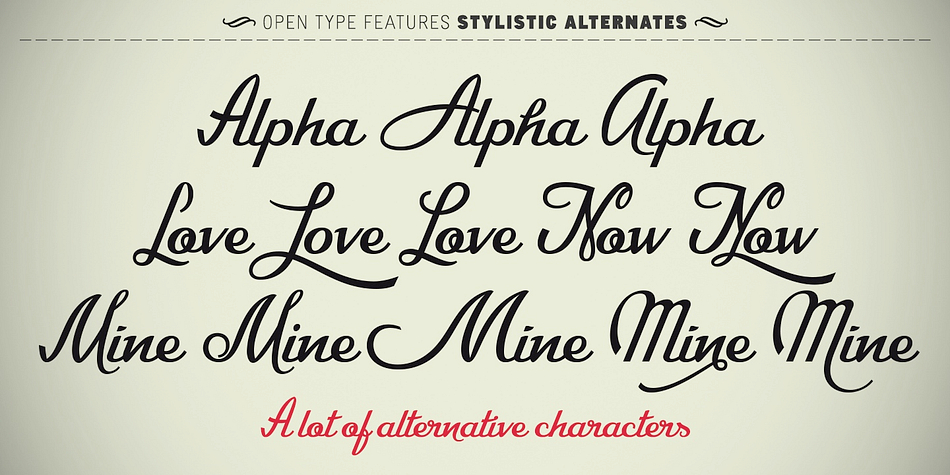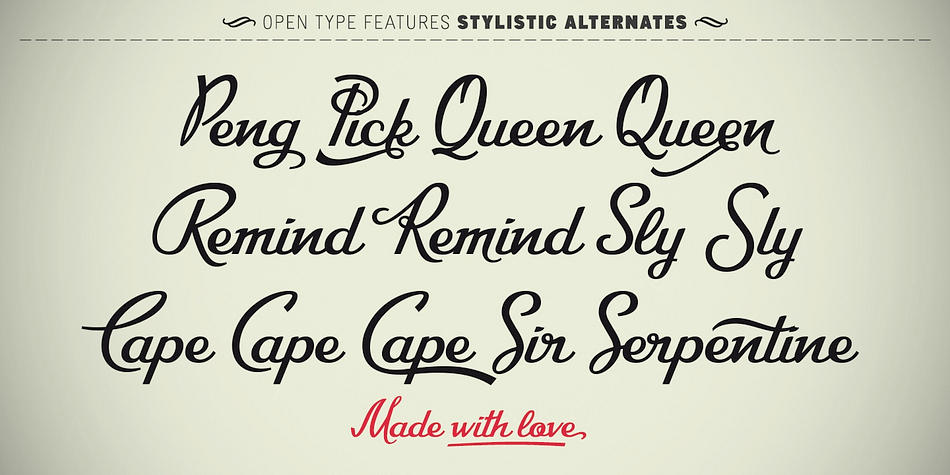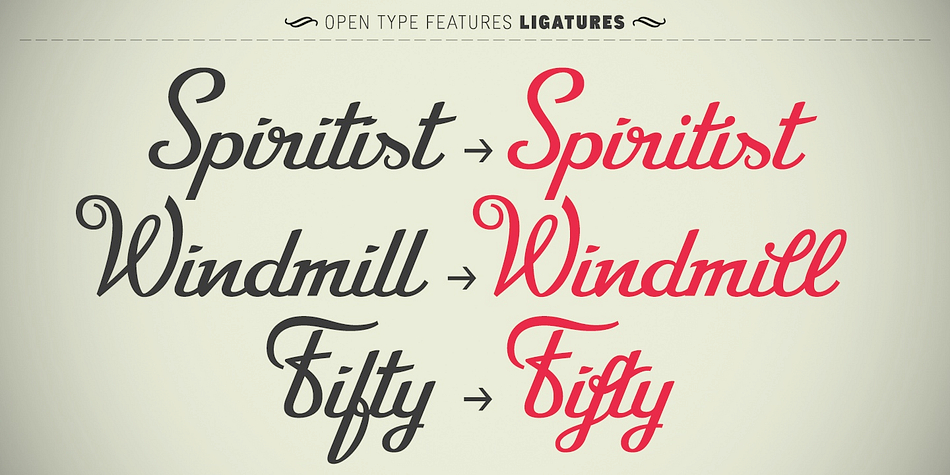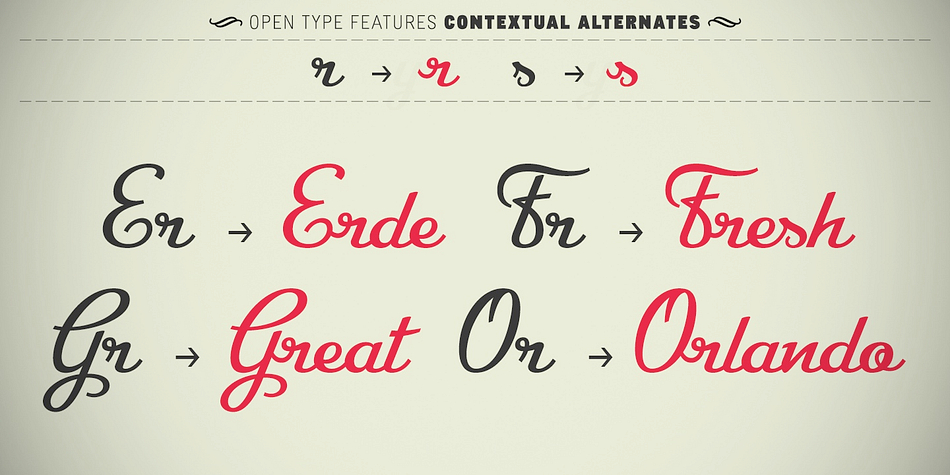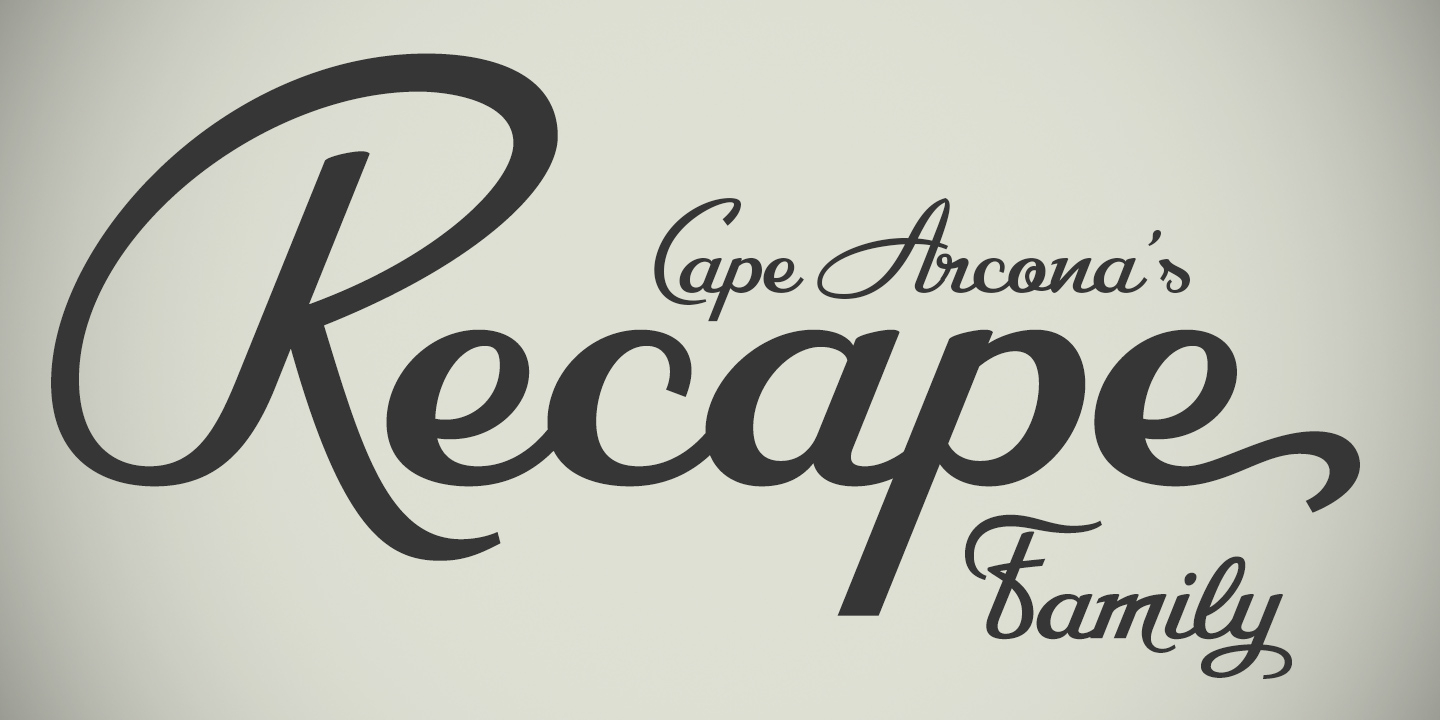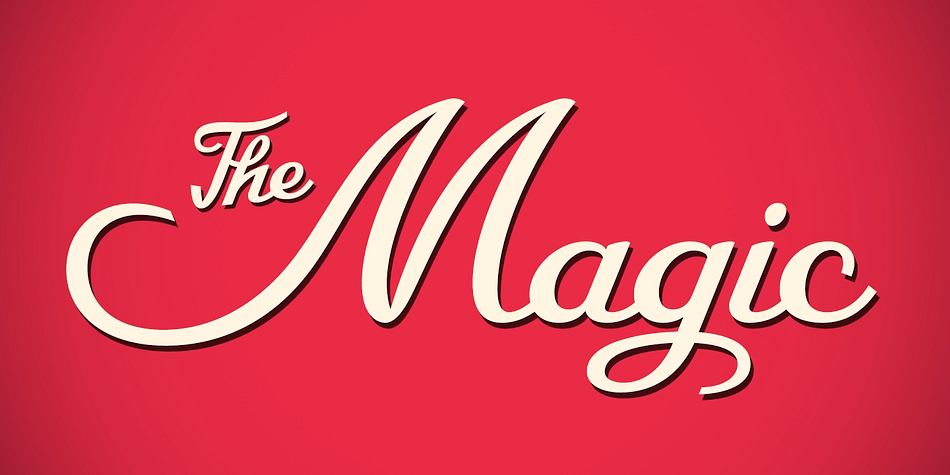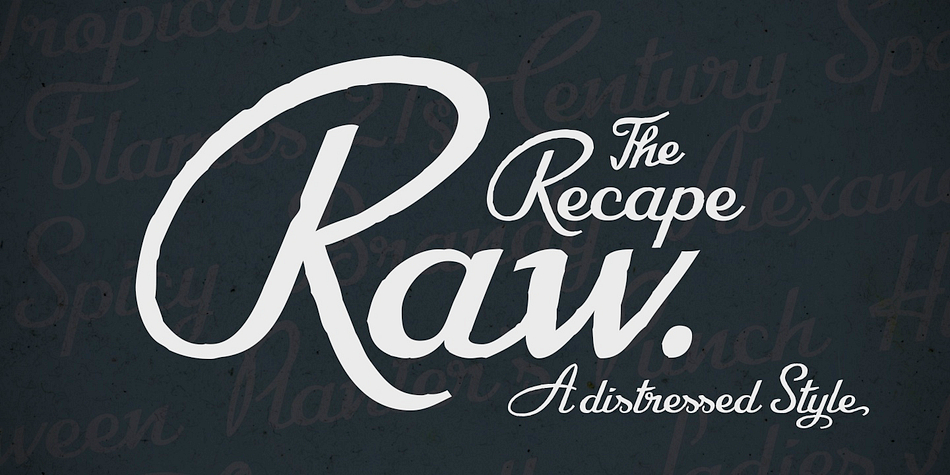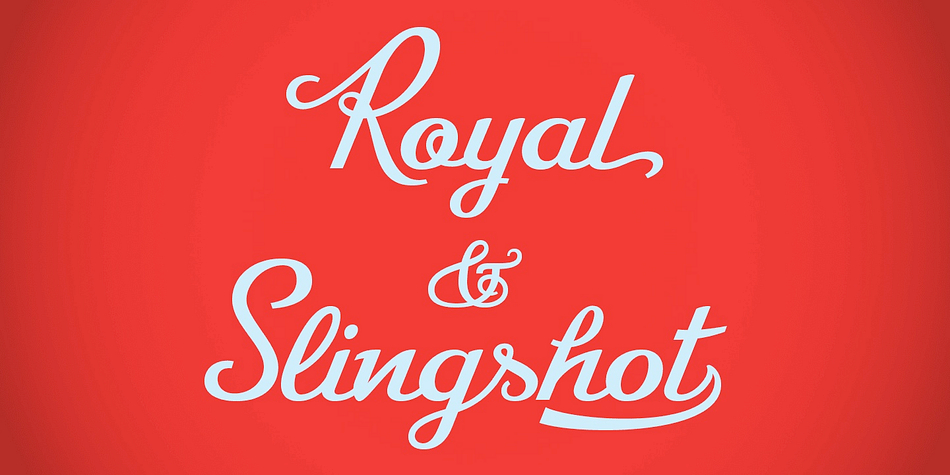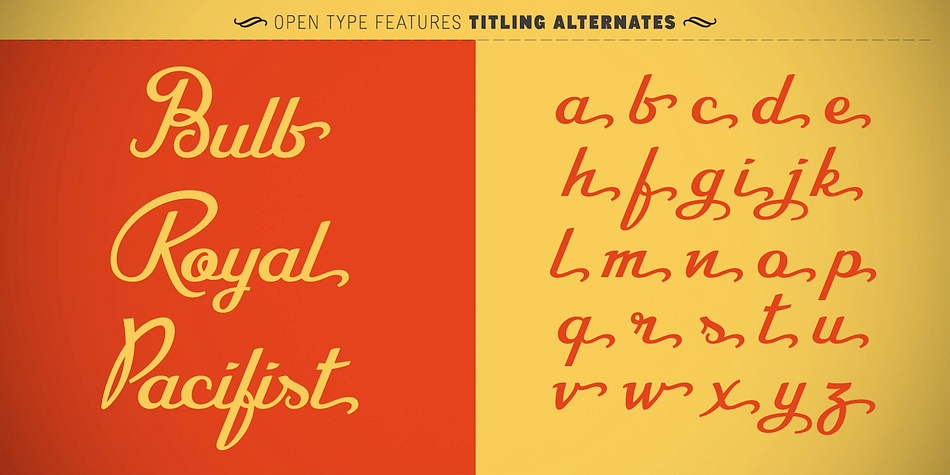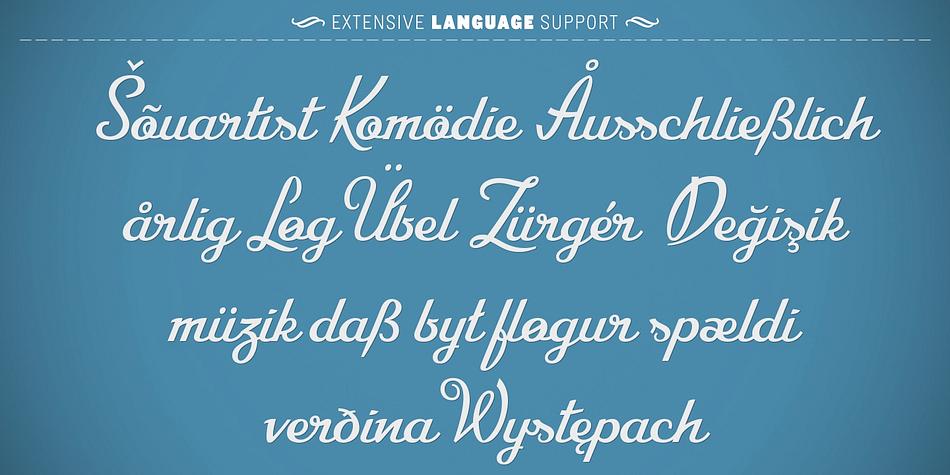
CA Recape is a brush script font family. This typeface has two styles and was published by Cape Arcona Type Foundry.
CA Recape is a weird and beautiful vintage script family with two styles. It’s an excellent choice for creating logotypes, headlines, signs, poster and any design that requires a custom-made feeling.
The basic inspiration for CA Recape comes from American 50s lettering. But instead of reviving one special style, it is a kind of “Best of”-Remix. It takes the weirdest and most beautiful letterforms of a weird and beautiful time and merges them into one font. The outcome is a charming bastard. Guess what it looks like: Weird and beautiful.
CA Recape is packed with a lot of OpenType features like underlining swashes, Stylistic, Discretionary, Titling and Contextual Alternates and Ligatures for use in OpenType savvy programs. It also comes with some nice Ornaments.
Derived from the original typeface, Cape Arcona Type Foundry also offers a Raw style that has the distressed look of a poorly printed raw font.